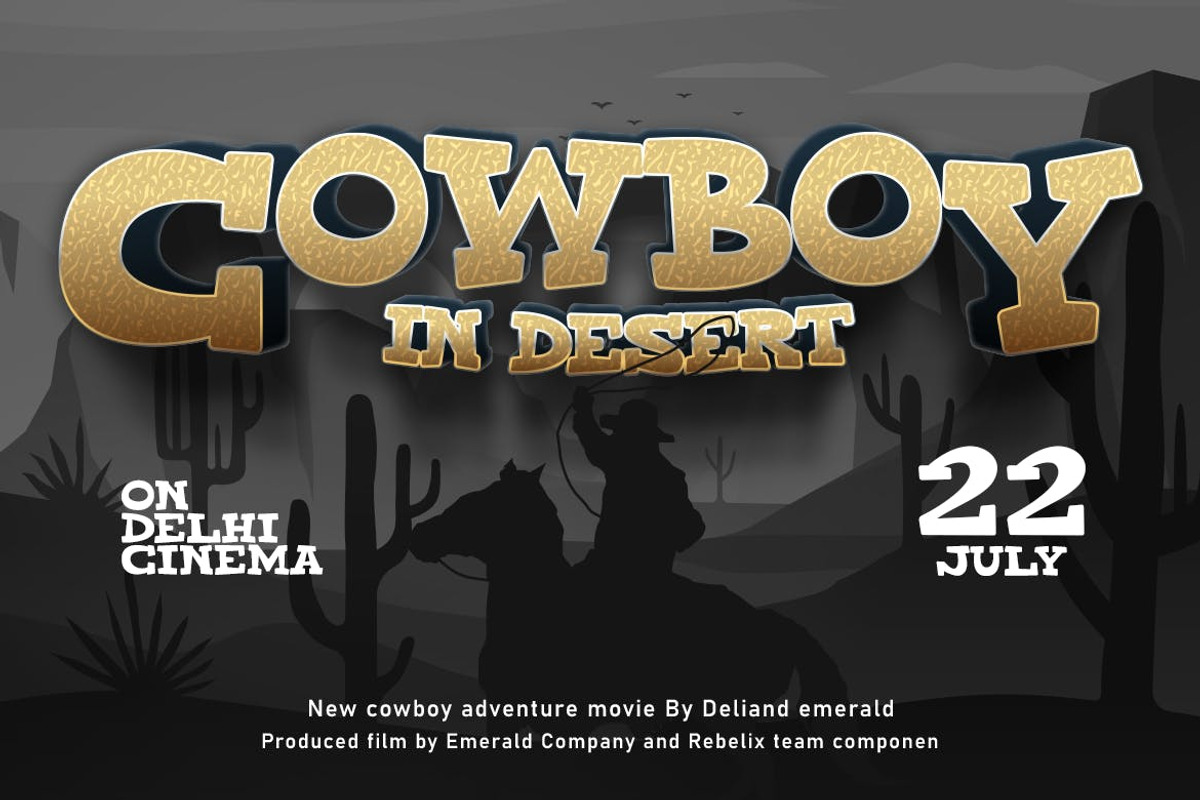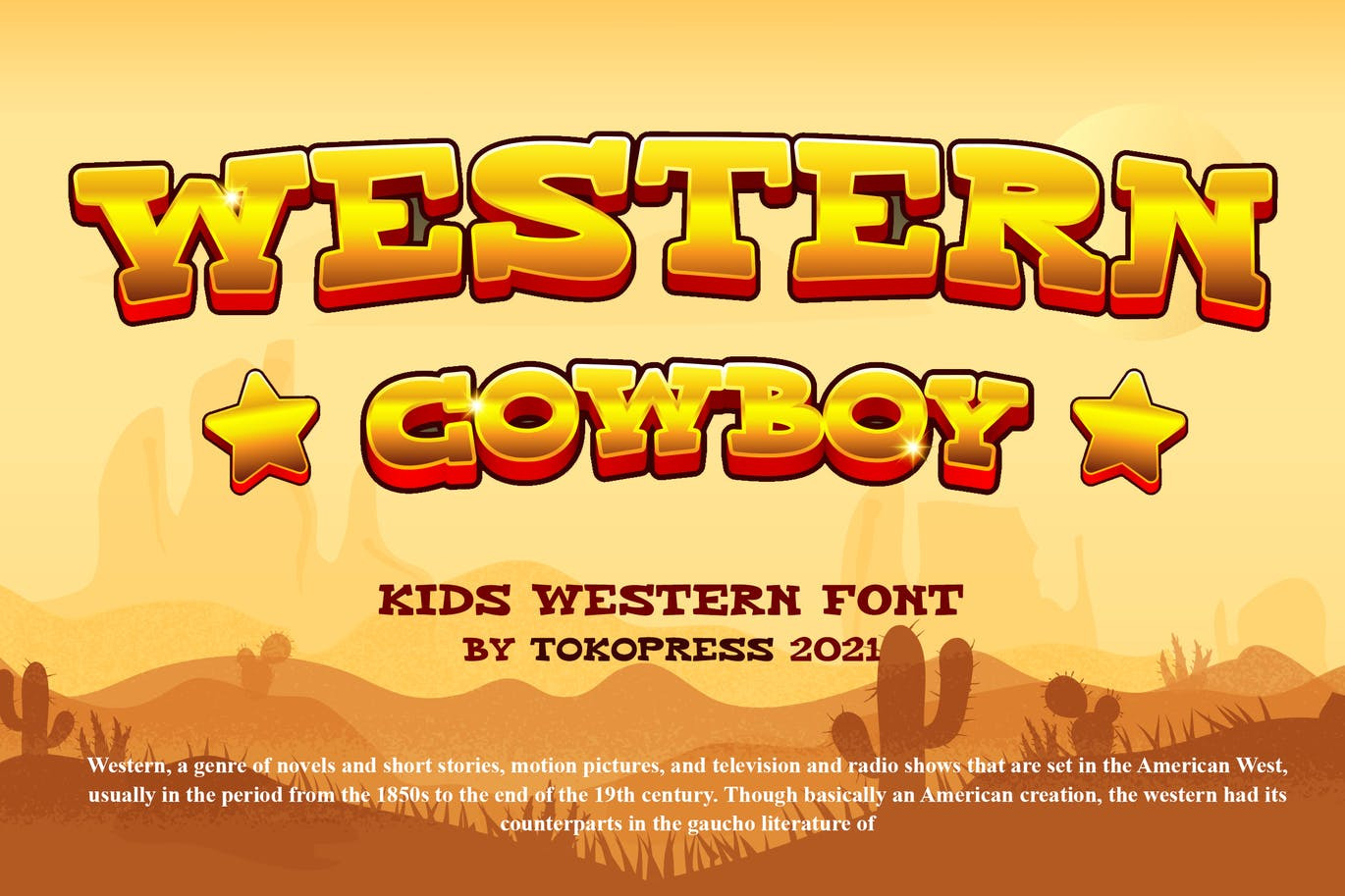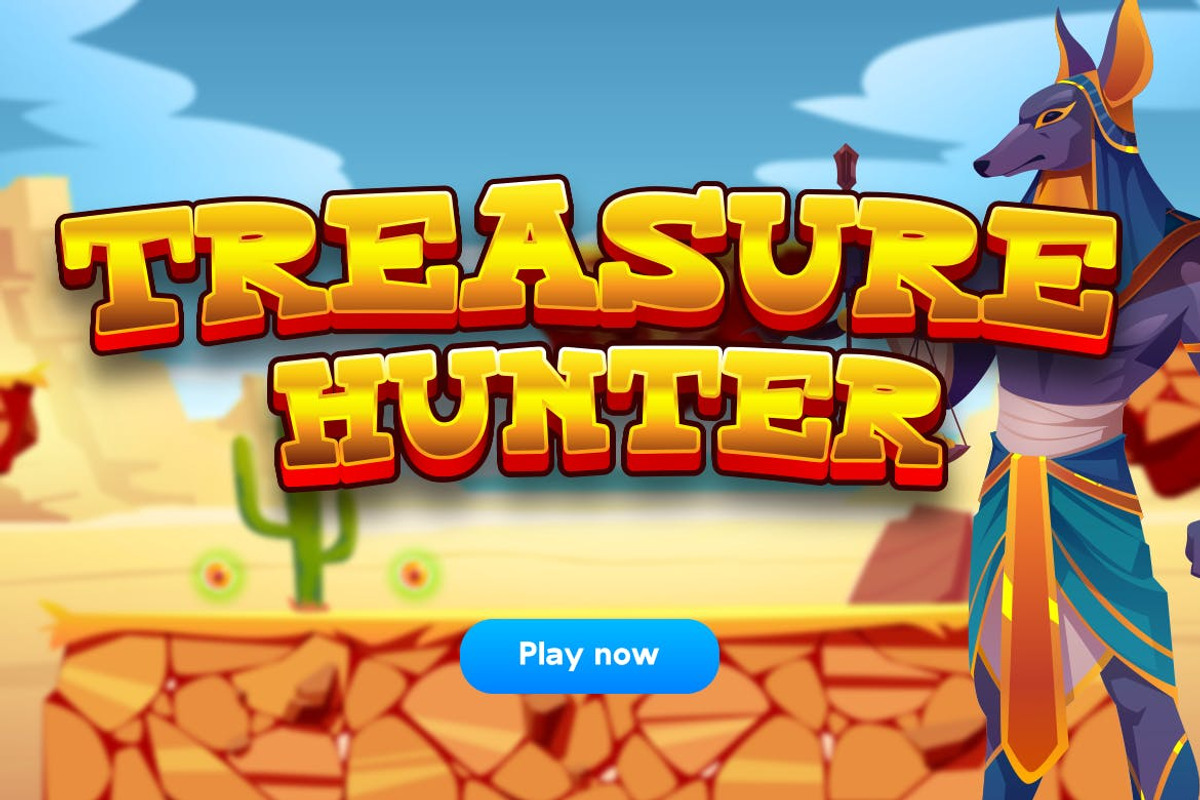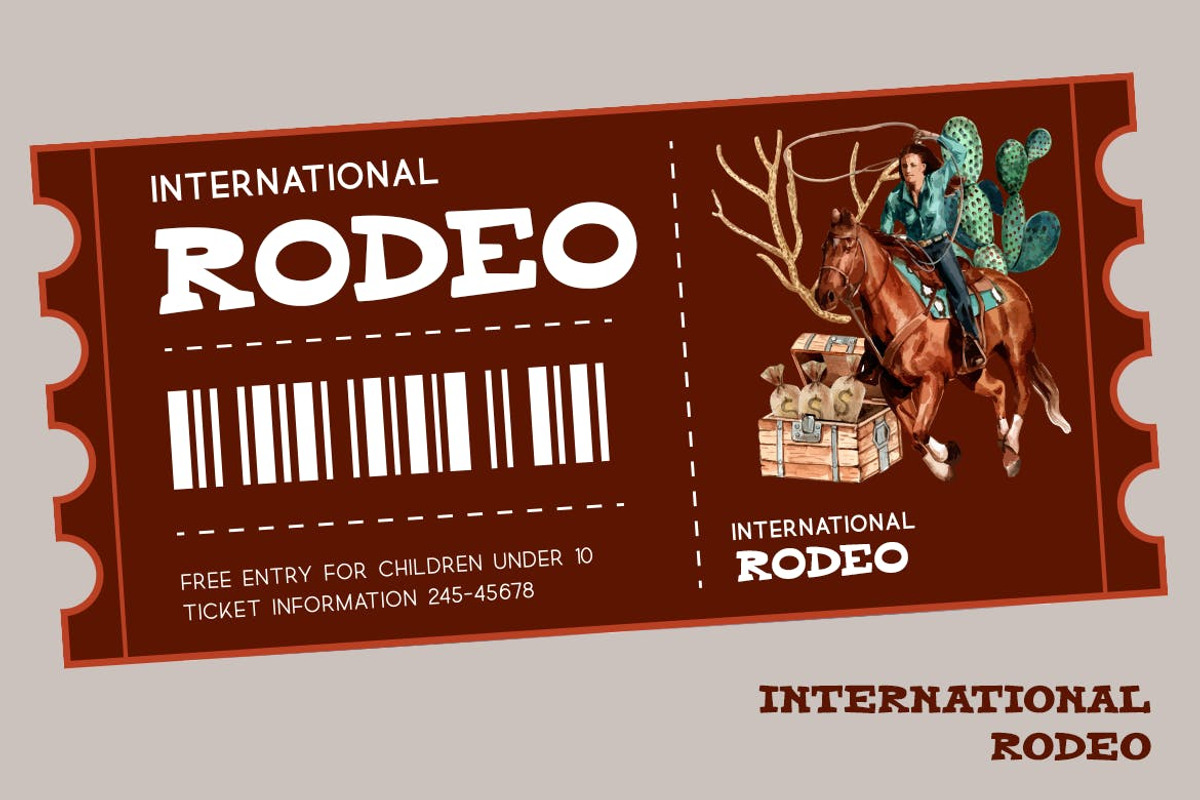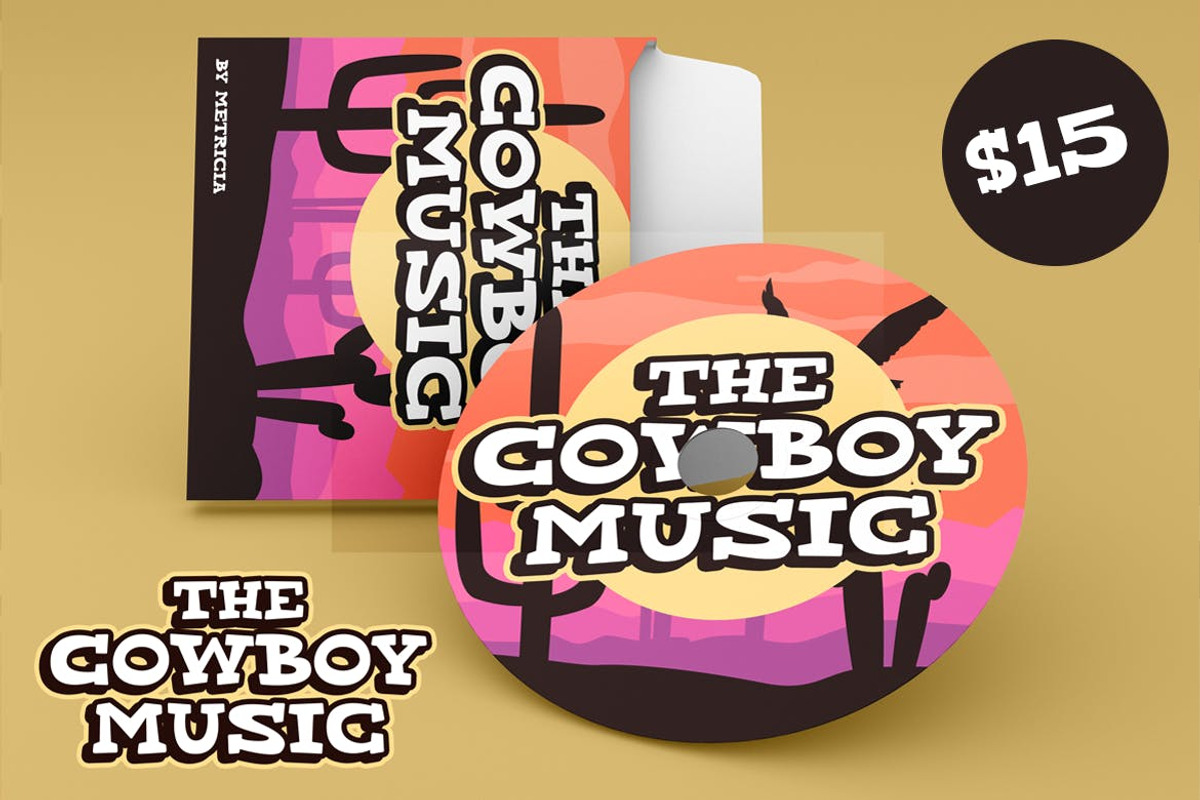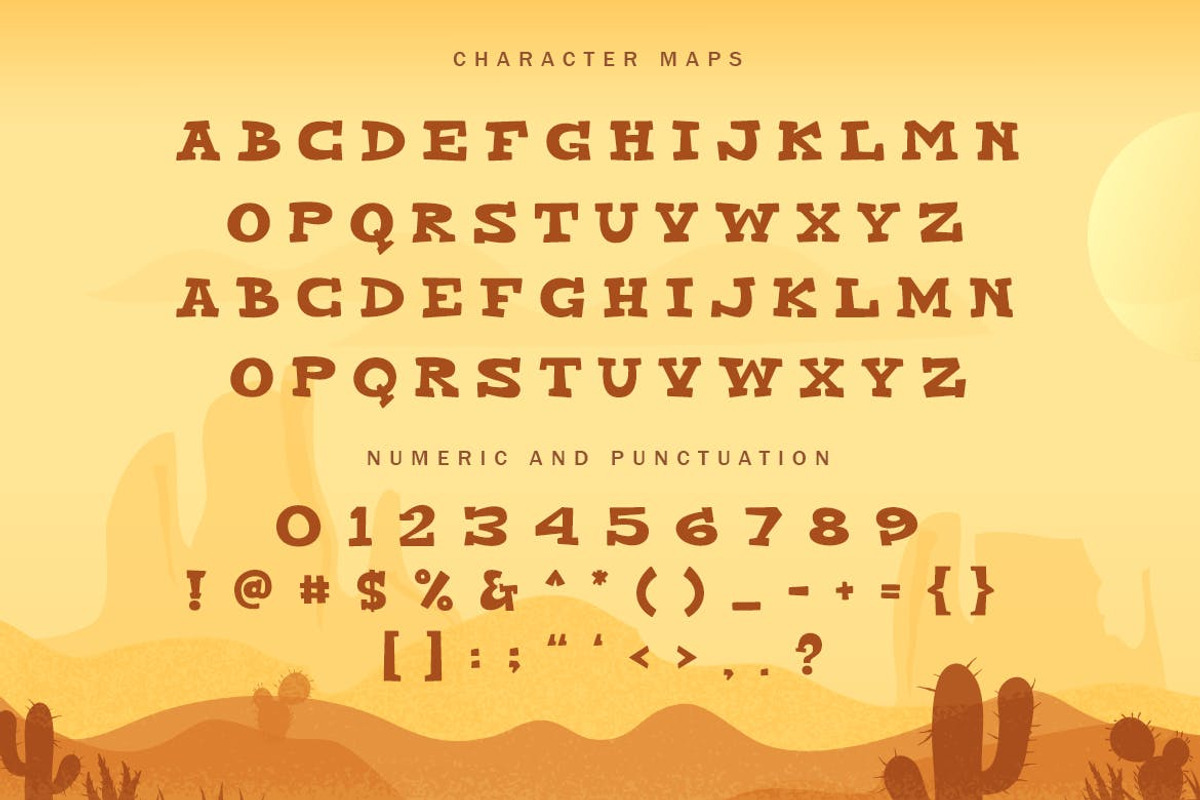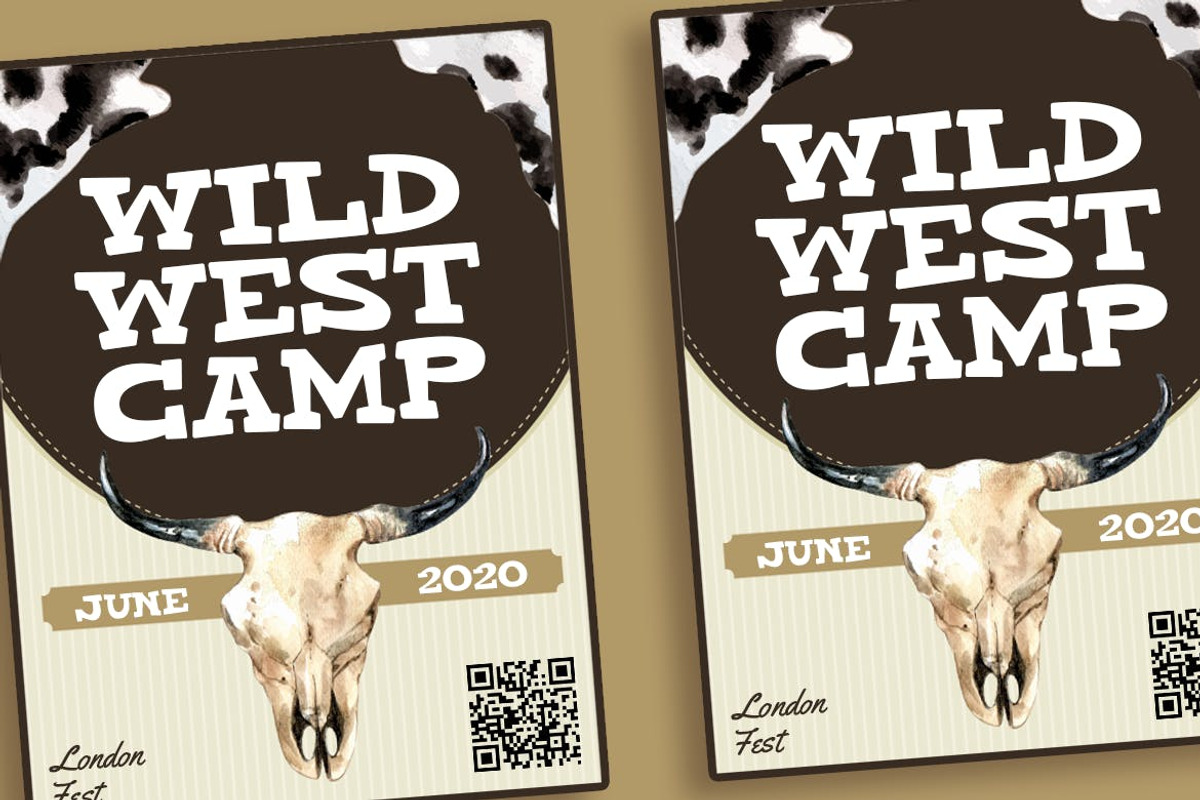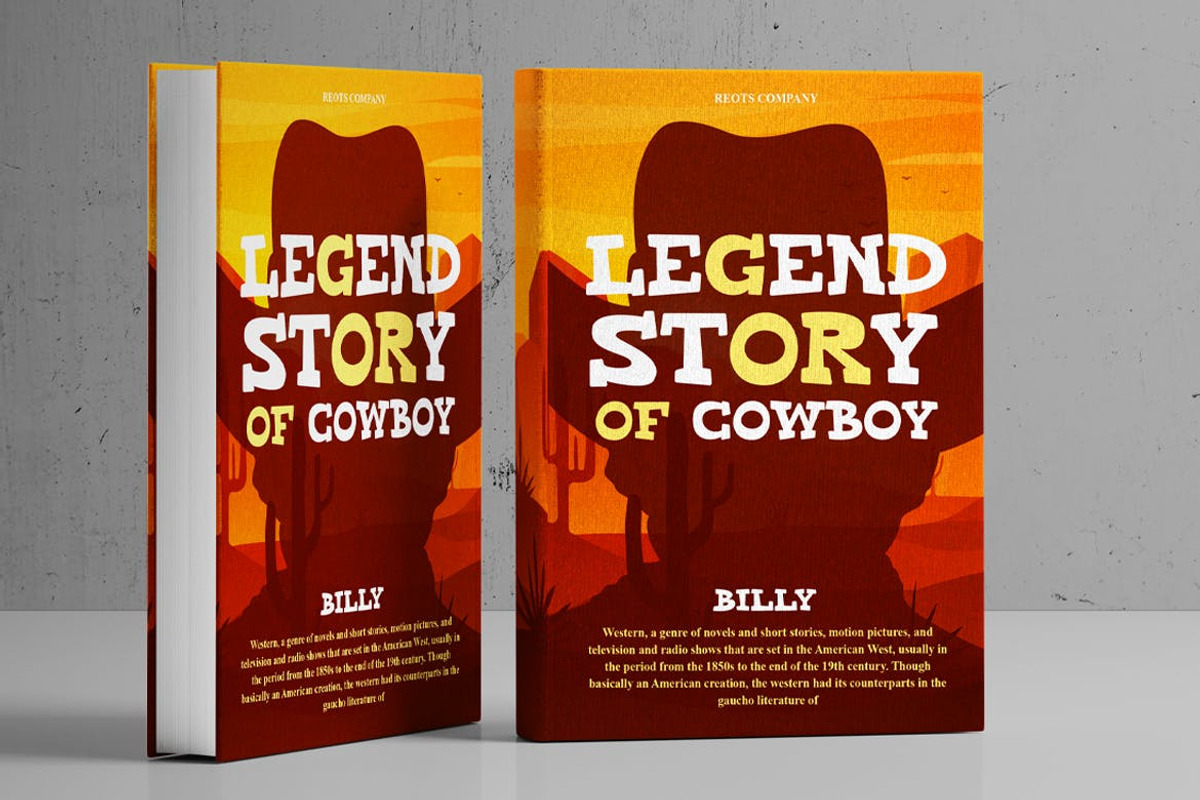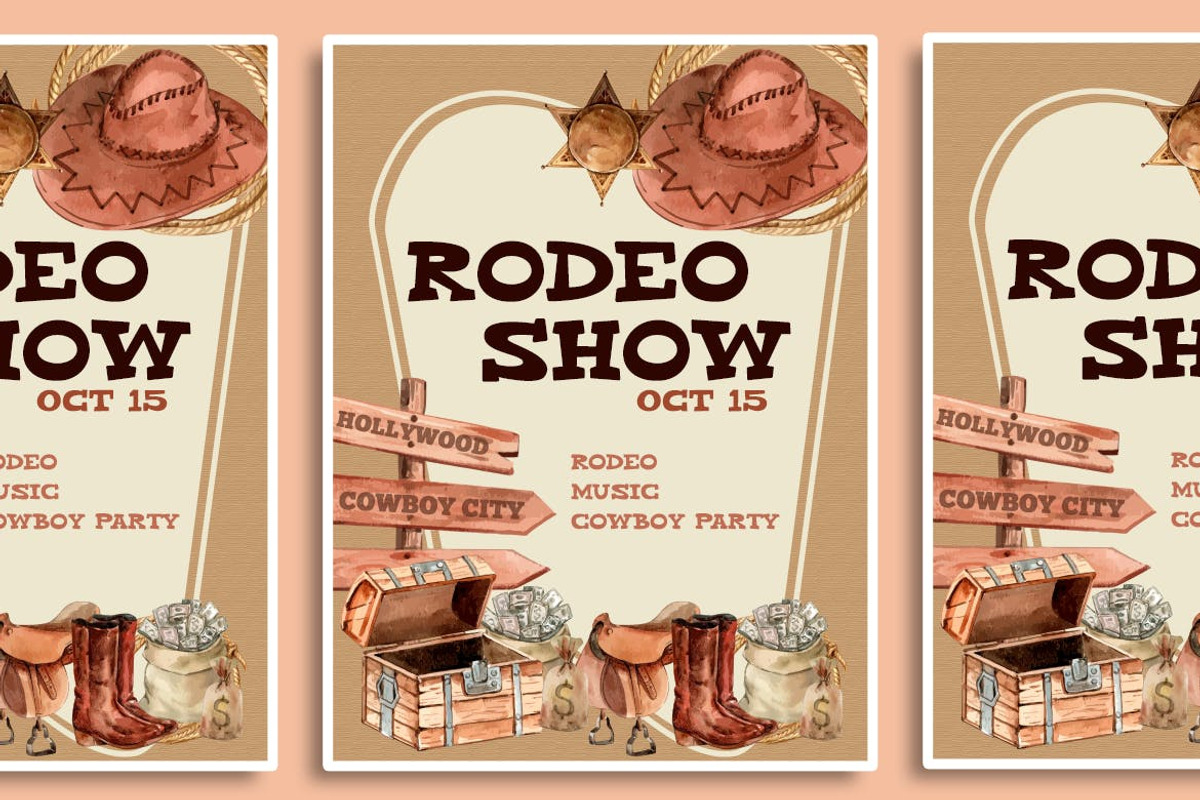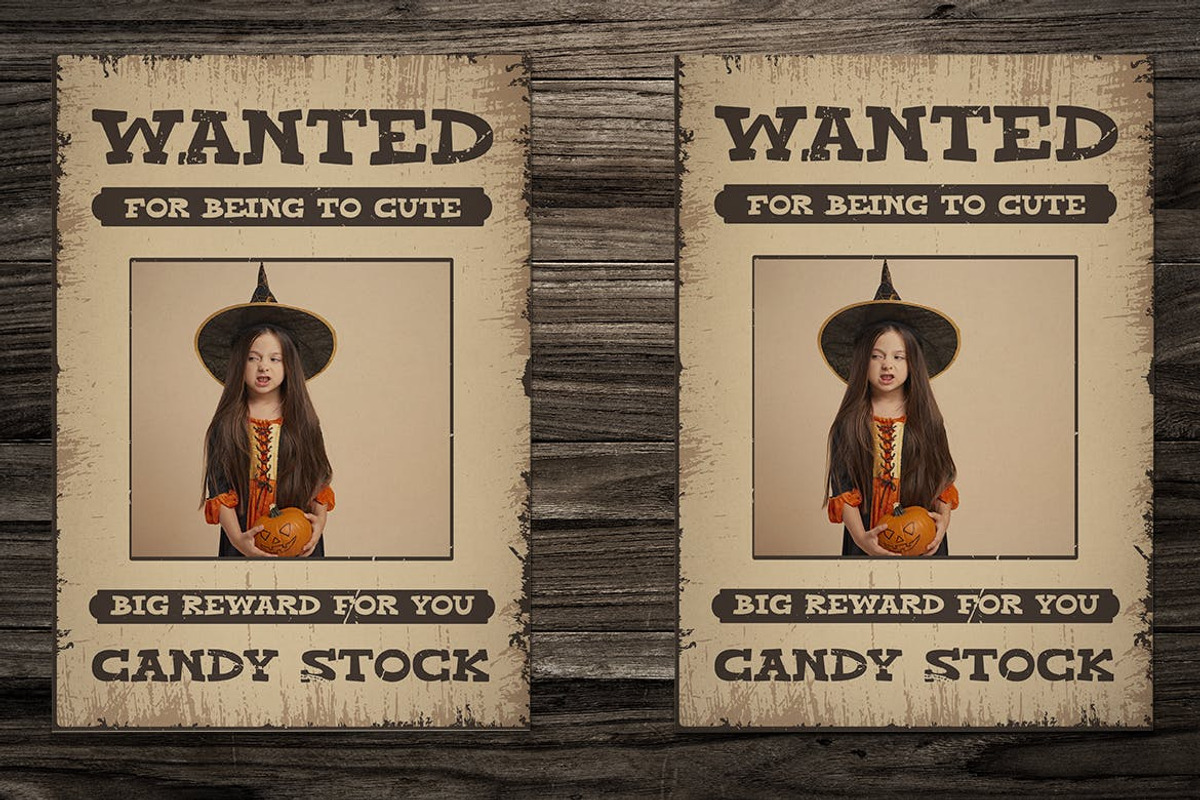
Western Cowboy - Gaming font
It is western, it is a bouncy baseline, it is Western Cowboy, your new favorite western kids font in town.
Suit perfectly for kids market, online games, stationary, school supplies font, poster, movie title, youtube covers, youtube thumbnails, social media page covers and so on...